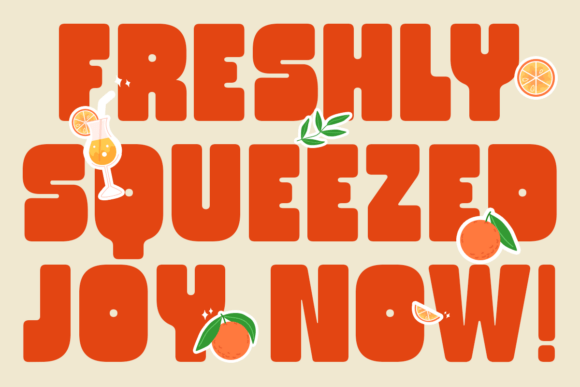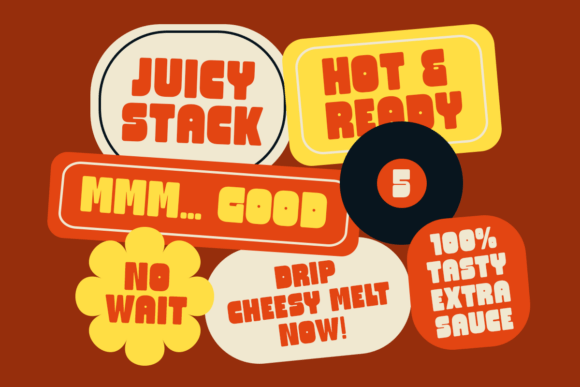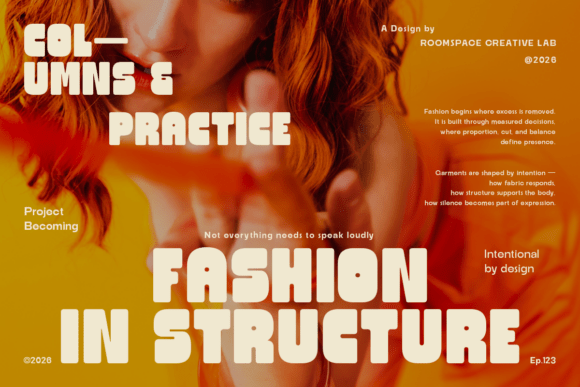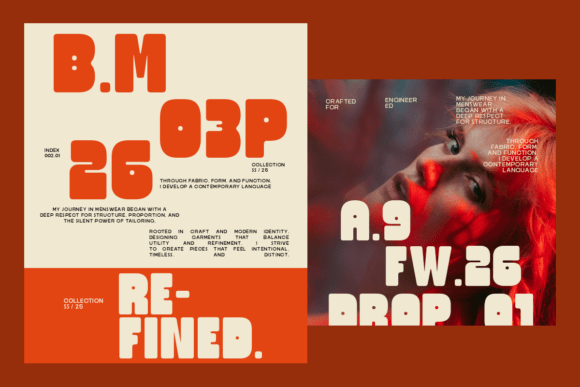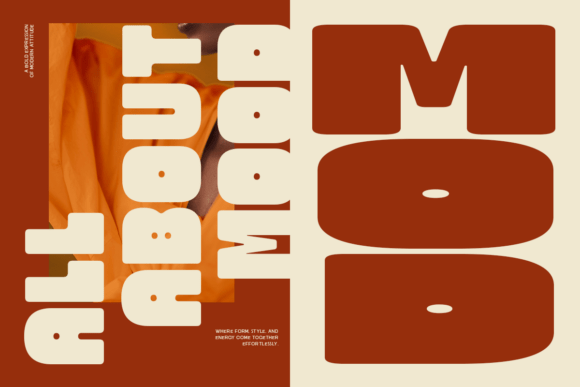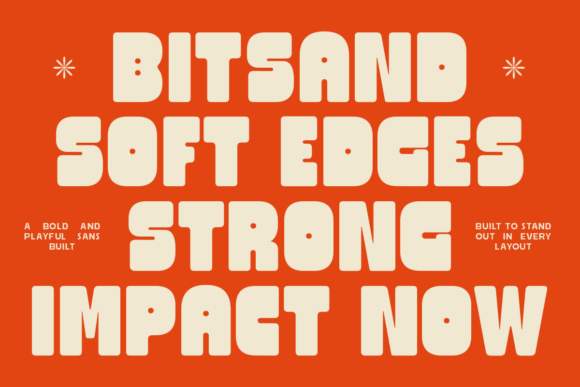
The Perfect Blend of Warmth and Energy: Introducing Bitsand Font
Have you ever been stuck in front of your computer, staring at a blank canvas, searching for the perfect font to bring your design to life? We’ve all been there. Sometimes, it takes just the right combination of elements to spark that creative spark, and that’s exactly what the Bitsand Font is designed to do.
This bold display sans-serif font is more than just a pretty face – it’s a tool that brings warmth, energy, and personality to your designs. With its rounded shapes and soft edges, Bitsand Font creates a friendly and approachable tone that’s sure to capture your audience’s attention. Whether you’re a seasoned designer or just starting out, Bitsand Font is a valuable addition to your toolkit, offering excellent readability and a unique charm that sets it apart from the rest.
Key Features of Bitsand Font
- Font Size: The font comes in multiple sizes, ranging from 12pt to 72pt, with precise control over each size.
- Resolution: Supports high-resolution designs up to 1000 DPI, ensuring crisp and clear text in various digital platforms.
- Unique Characteristics: Bitsand Font features a unique blend of digital and analog elements, with geometric shapes and futuristic flair.
- Language Support: Supports over 200 languages, making it an ideal choice for multilingual designs and applications.
- Font Pairing: Designed to pair well with a wide range of fonts, including sans-serif, serif, and script fonts, allowing for versatility in design.
Bitsand Font Review
I’ve had the chance to work with Bitsand Font, and overall, I’m quite impressed. Here’s my honest review.
Bitsand Font has a clean and modern aesthetic that makes it suitable for a wide range of designs. The font is highly legible, even at smaller sizes, which is a must for digital applications.
- Consistent line spacing and letter spacing make it easy to read.
- The font’s versatility allows it to be used in both headings and body text.
- It’s great for creating a professional and sleek look in any design.
While Bitsand Font is a great choice for many projects, there are some limitations to consider.
- The font lacks a bold weight, which can make it difficult to create clear headings in some cases.
- The italic style is a bit inconsistent with the regular style, which can make it harder to use in certain situations.
Overall, Bitsand Font is a solid choice for designers looking for a clean and modern font. While it has some limitations, its versatility and legibility make it a great addition to any design arsenal.
Tips for Getting the Most Out of Bitsand Font
Use Bitsand Font for creative projects that require a unique and eye-catching font style.
Experiment with different font sizes, colors, and combinations to achieve the desired effect.
Consider using Bitsand Font for headings, titles, or other emphasis text to add visual interest.
Bitsand Font is ideal for:
Graphic design projects, such as posters, flyers, and brochures.
Branding and marketing materials, such as logos and business cards.
Digital projects, such as social media graphics and presentations.
Alternatives to Bitsand Font for Designers
Montserrat Font is a sans-serif font designed by Julieta Ulanovsky. It is a geometric font that is perfect for digital interfaces and websites. Montserrat Font is a great alternative to Bitsand Font when you need a clean and modern look for your designs.
Montserrat Font is similar to Bitsand Font in its geometric style, but it has a more urban feel to it. Montserrat Font is also more versatile and can be used for a wide range of designs, from logos to website interfaces.
Open Sans Font is a sans-serif font designed by Steve Matteson. It is a highly legible font that is perfect for digital interfaces and print materials. Open Sans Font is a great alternative to Bitsand Font when you need a clean and readable font for your designs.